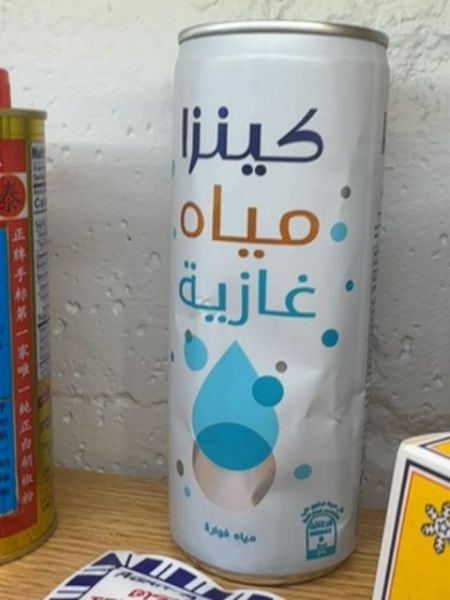
Kinza
This is a carbonated water product designed to provide a refreshing and fizzy beverage choice.
Saudi Arabia
The typography uses bold, playful Arabic script with a modern touch. The fonts are sans-serif, emphasizing simplicity and cleanliness, with the product name in a larger size to create visual prominence.
The packaging is a tall, sleek can with a white base color. It features a large droplet design to emphasize the water theme, accompanied by different sized bubbles in blue and brown.
- Kinza is a popular brand for sparkling water.
- The can design emphasizes purity and refreshment.
- It is part of a growing trend for healthier beverage options.